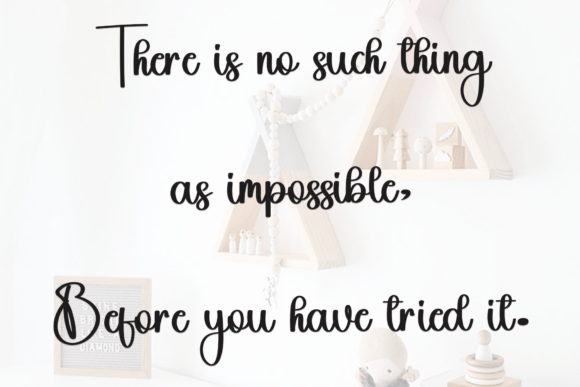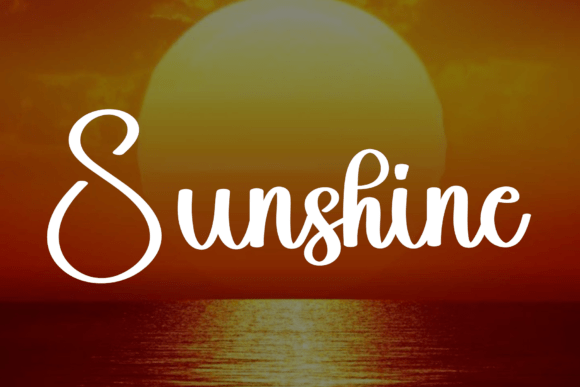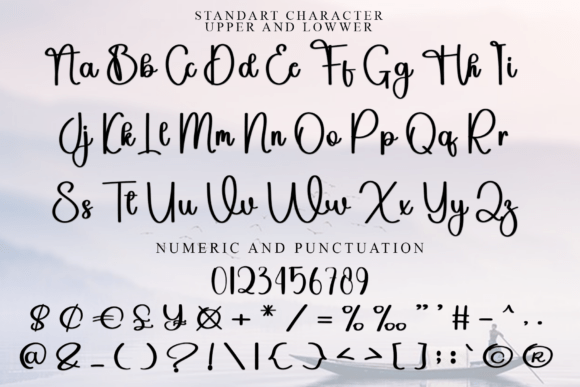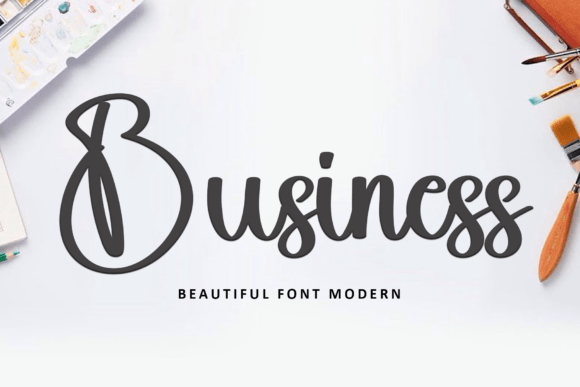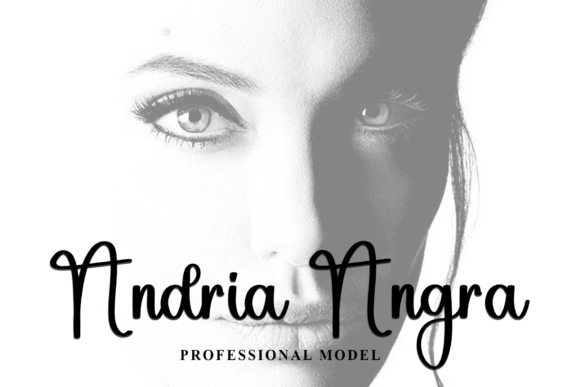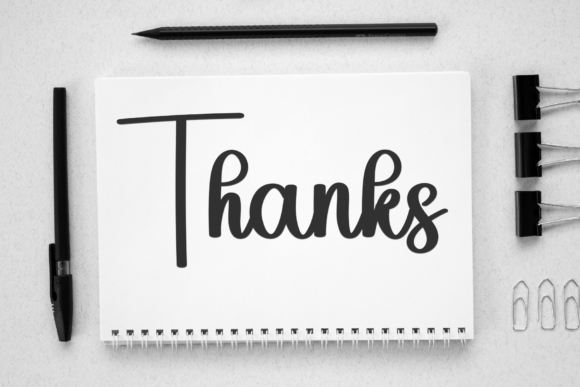
Introduction to Santa Weekend Font
As the snowflakes start to fall and the fireplace crackles to life, the holiday season is in full swing. It’s the perfect time to get creative and add some festive flair to your designs. Whether you’re working on a high-quality greeting card or a creative project for a loved one, the right font can make all the difference.
Enter the enchanting Santa Weekend Font, a merry typeface that captures the spirit of the holiday season. With its whimsical flair and decorative elements, this font adds a touch of magic to your words, making it a valuable design resource for any project. Whether you’re working with a transparent background or a busy holiday-themed design, the Santa Weekend Font is sure to bring a cheerful and nostalgic ambiance to your words.
Key Features of Santa Weekend Font
- High-quality font design for creative projects, perfect for designers and artists.
- Unique, festive design, perfect for holiday-themed projects and campaigns.
Honest Review: Santa Weekend Font
I recently came across the Santa Weekend Font, a creative project designed for those special occasions. As a designer, I was excited to dive in and see what it had to offer. First impressions were great – the font is a high quality, clean design that’s perfect for any festive project.
One of the standout features of the Santa Weekend Font is its transparent background, making it easy to overlay on top of other design elements. This is a huge design resource for anyone looking to add a bit of festive flair to their work.
- High-quality design that’s perfect for festive projects
- Transparent background for easy overlay
- Limited character set, may not be suitable for large blocks of text
- May not be as versatile as some other fonts in its category
Overall, the Santa Weekend Font is a solid addition to any designer’s toolkit. While it may have some limitations, its clean design and transparent background make it a great resource for any creative project. I’d definitely recommend it to anyone looking to add a bit of festive flair to their work.
The Santa Weekend Font is a high-quality, creative design resource that’s perfect for adding a festive touch to your projects. With a transparent background, this font is ideal for overlaying onto images or using as a standalone design element.
Tips for Getting the Most Out of Santa Weekend Font
To get the most out of the Santa Weekend Font, experiment with different font sizes, colors, and combinations. You can also use it in conjunction with other design elements, such as images and graphics, to create a unique and eye-catching design.
Common Use Cases for Santa Weekend Font
The Santa Weekend Font is perfect for a variety of projects, including holiday cards, party invitations, and social media graphics. It’s also great for use in marketing materials, such as brochures and flyers.